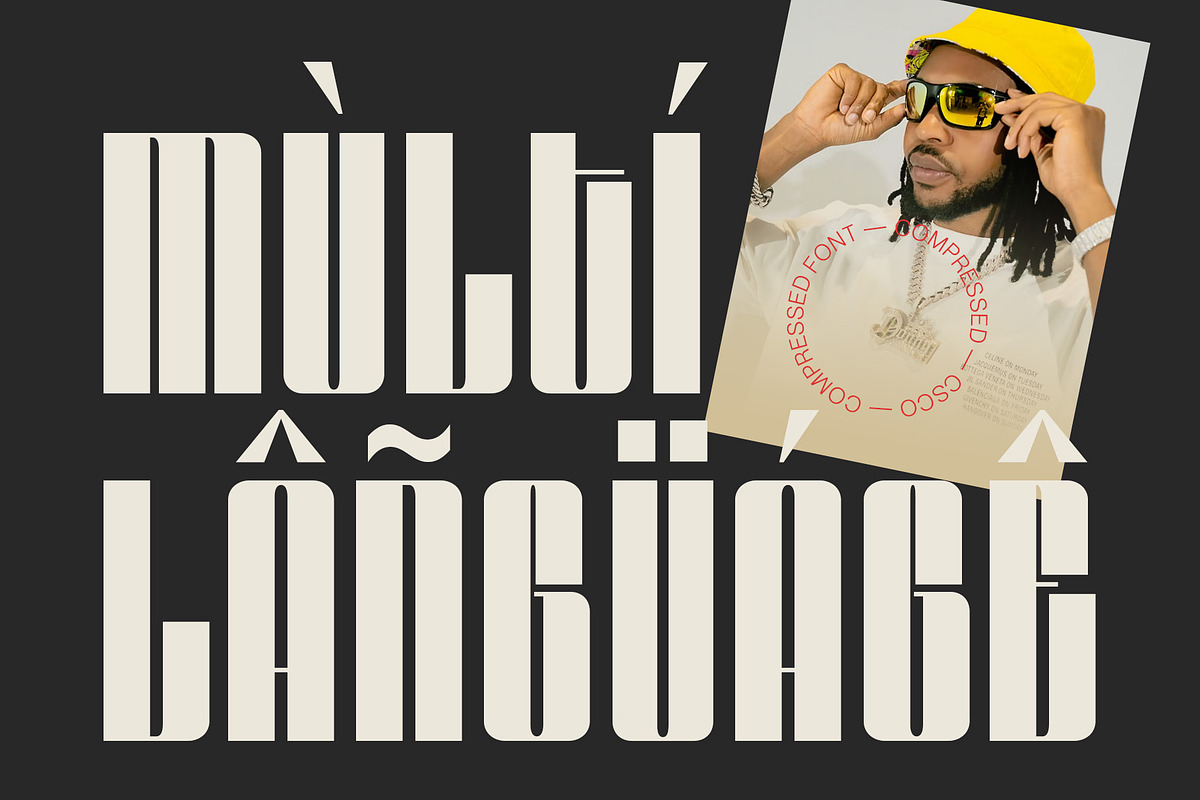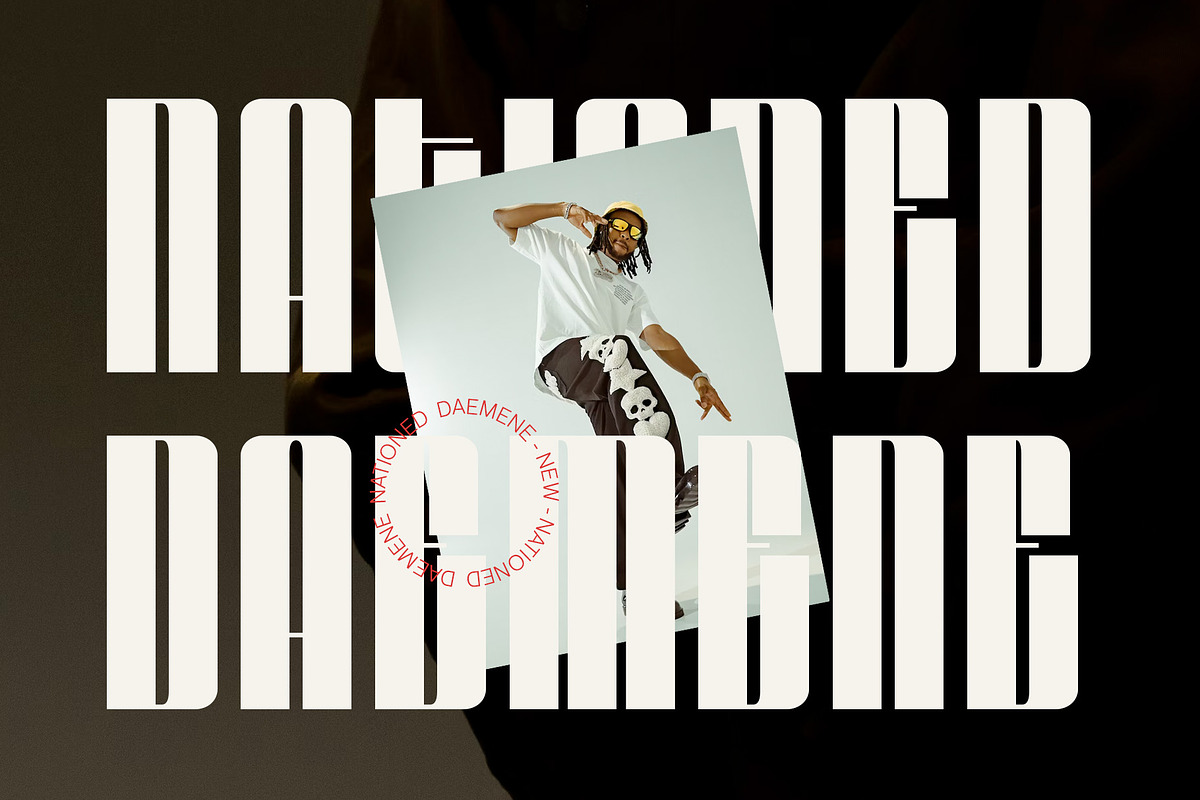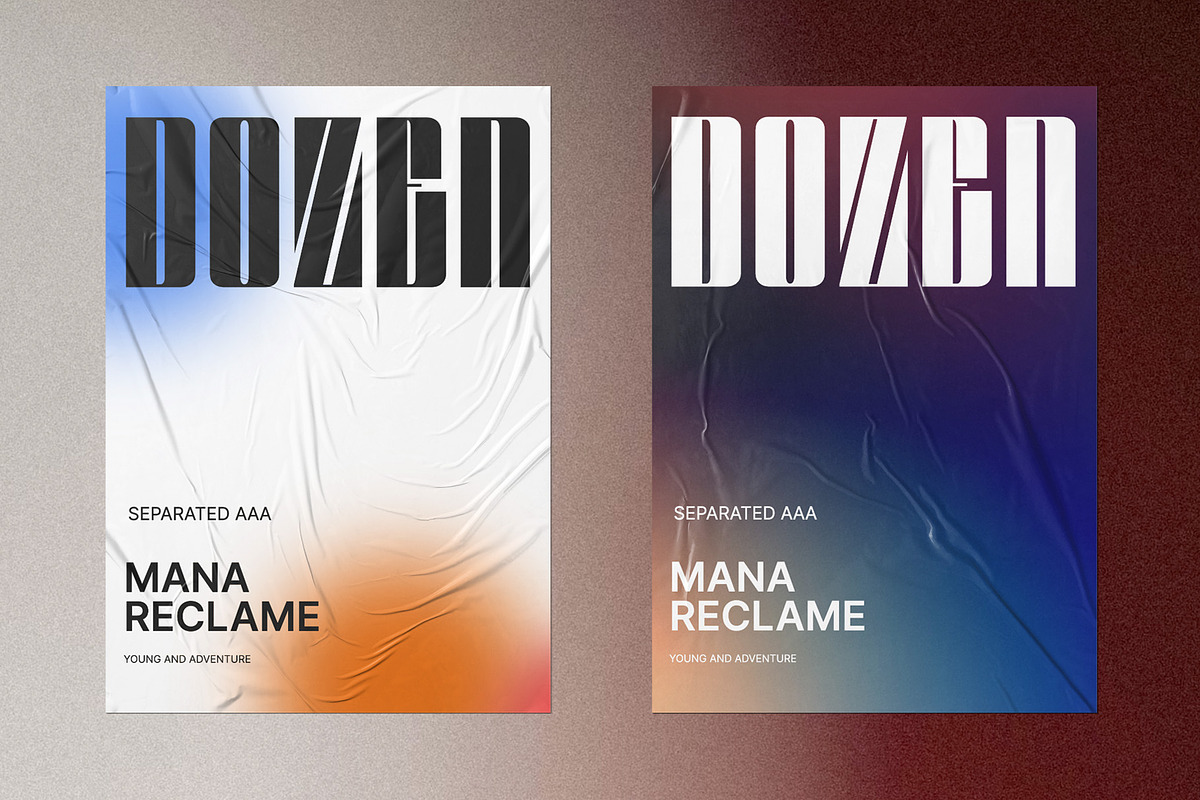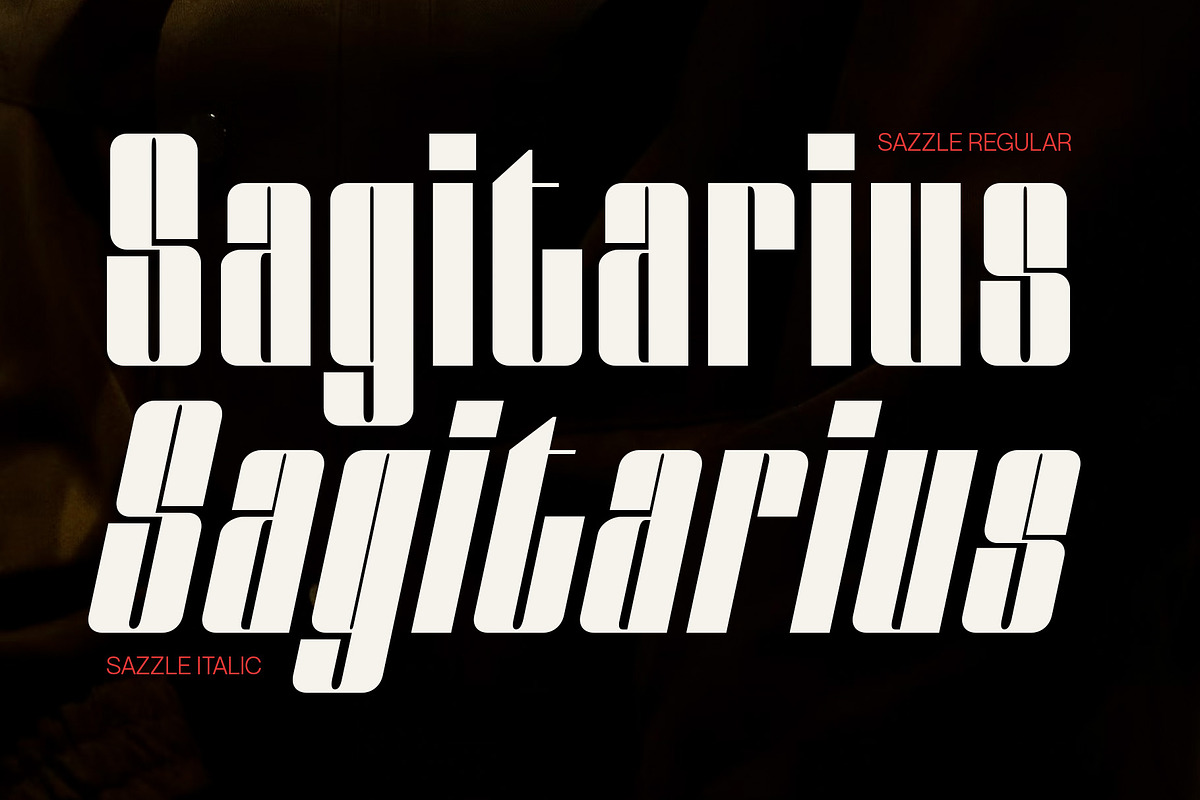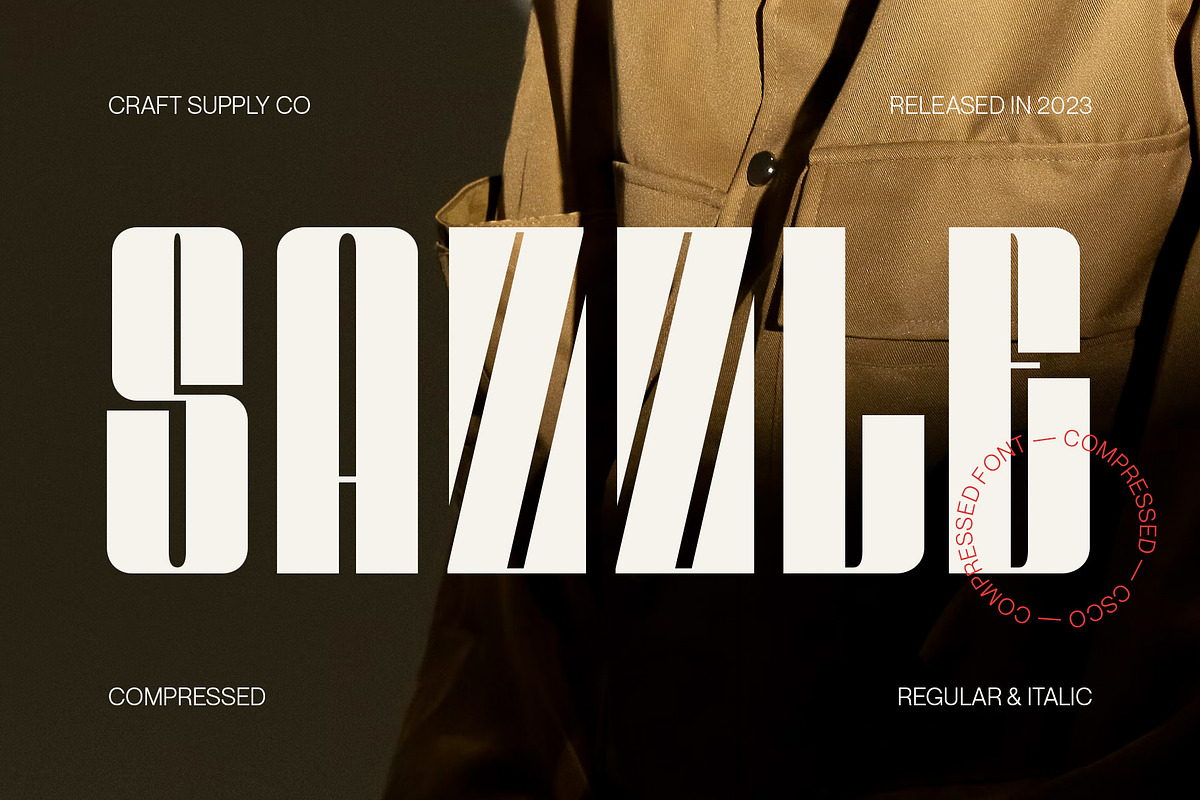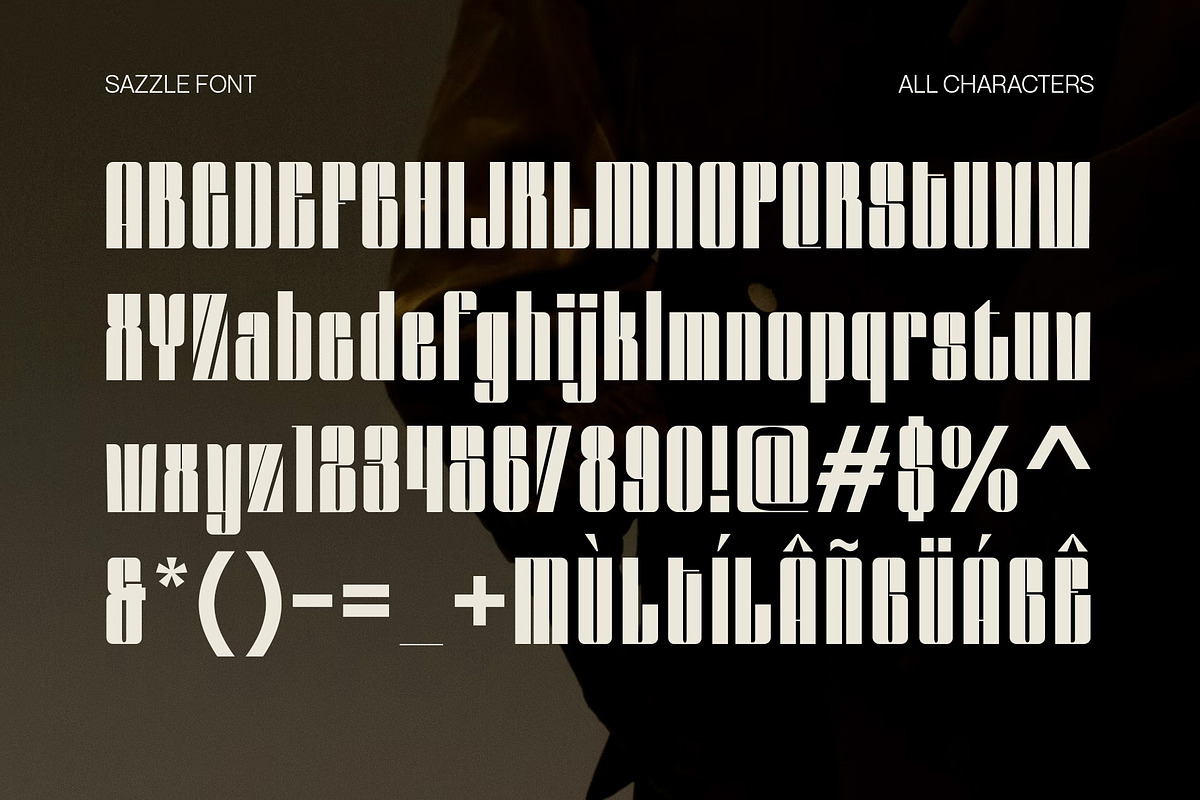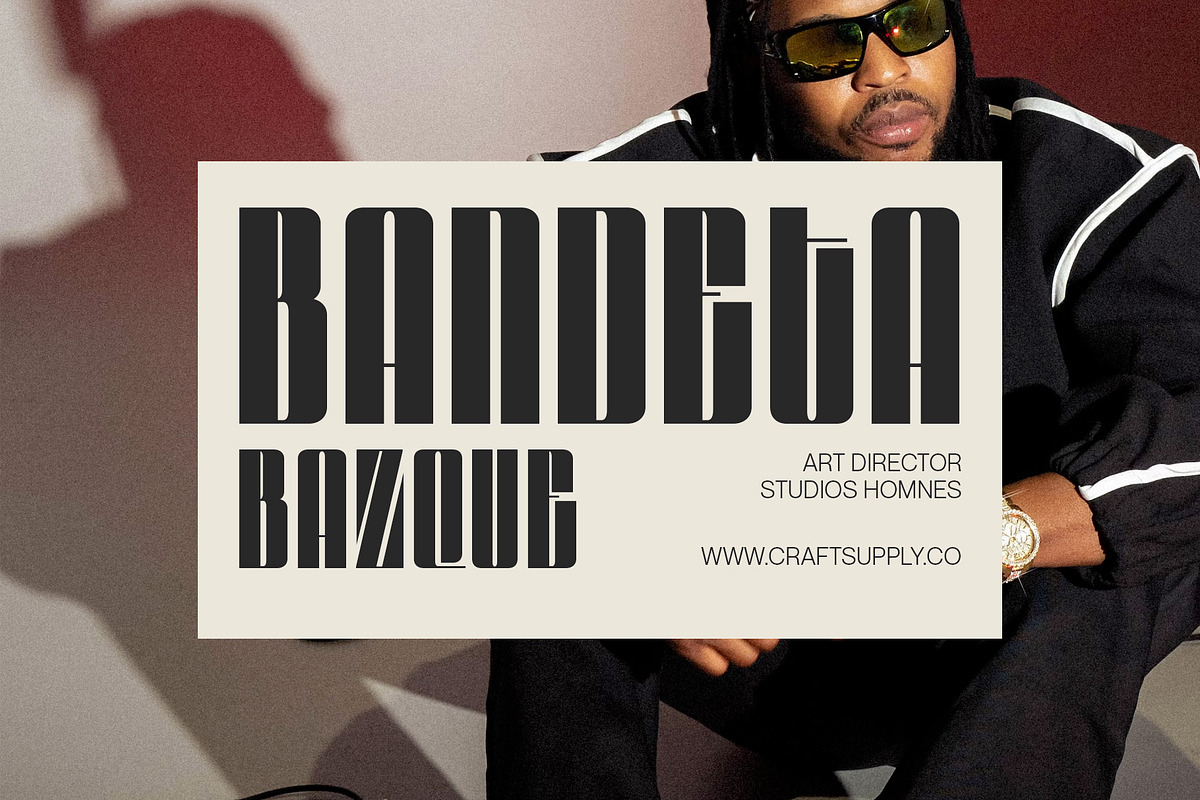
Sazzle - Compressed Sans Serif
Introducing Sazzle - Compressed Sans Serif: A sleek typeface that demands attention with its tightly compressed design and minimal white space. With its clean lines and modern appeal, Sazzle adds a touch of sophistication to your projects, making an unignorable, bold statement.
This typeface is ideal for greeting card, packaging, brand identity, poster, or any purpose to make your design project look eye catching and trendy. Feel free to play with this typeface!
- Sazzle Regular
- Sazzle Italic